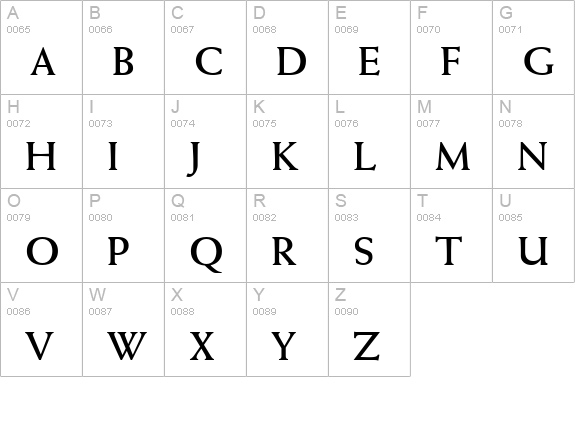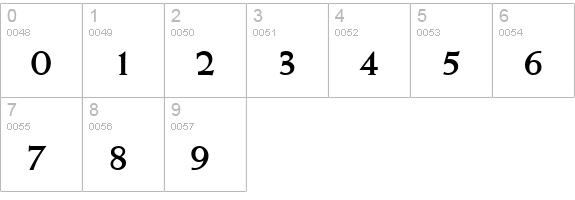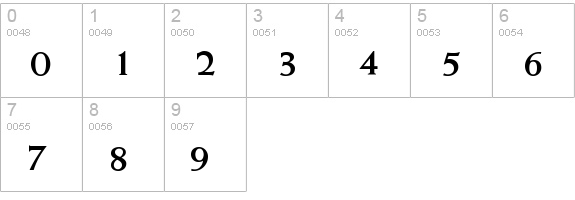
Missive SSi Bold is a strong, high-contrast variant in the Missive typeface family \xE2\x80\x94 well suited to headlines, attention-grabbing titles, and strong calls-to-action.
Missive SSi Bold font is a stunning and bold typeface that exudes elegance and sophistication. With its strong, sharp lines and modern aesthetic, this font is perfect for making a bold statement in any design project. Whether you're creating eye-catching headlines, striking logos, or sleek branding materials, Missive SSi Bold font is sure to captivate your audience. The best part? Missive SSi Bold font is available for free download at FontsMarket.com. This means that you can easily access this high-quality font and incorporate it into your projects without any cost. Don't miss out on the opportunity to elevate your designs with the striking beauty of Missive SSi Bold font. Download it today and let your creativity shine!